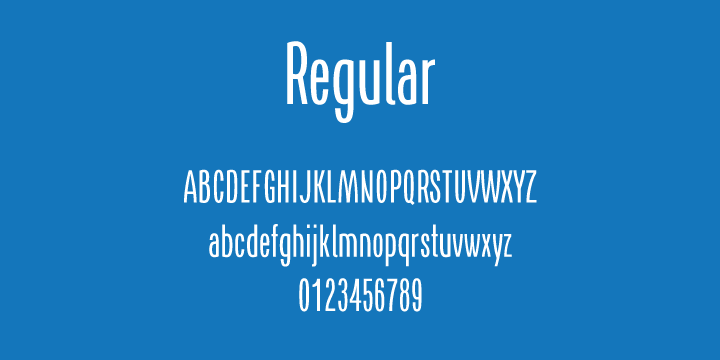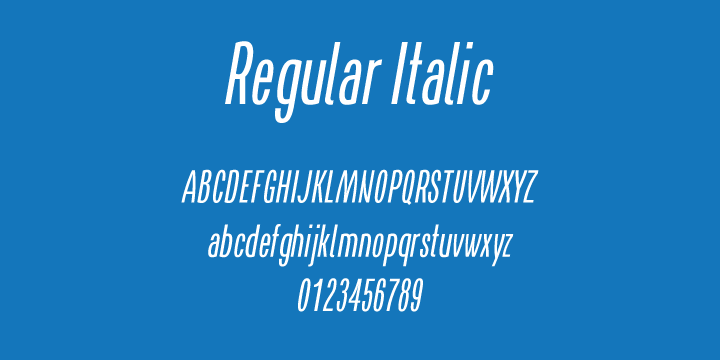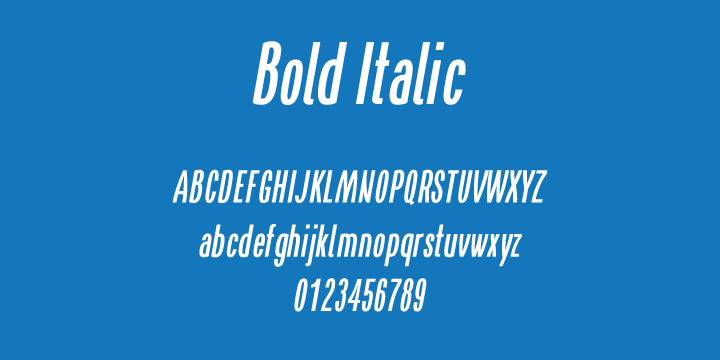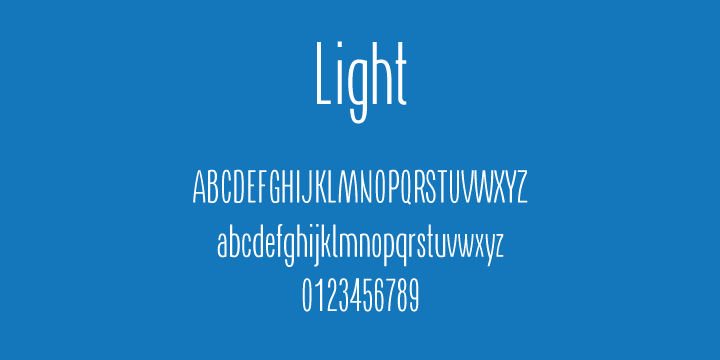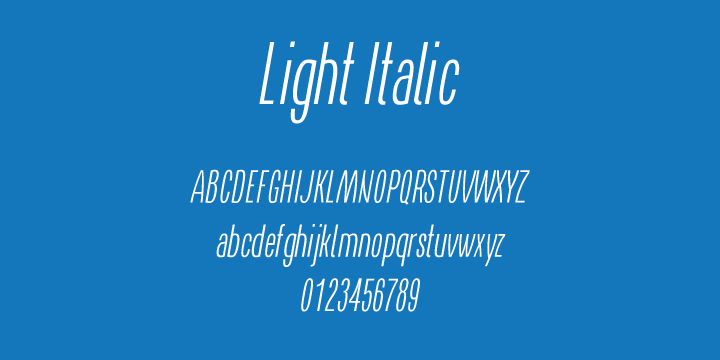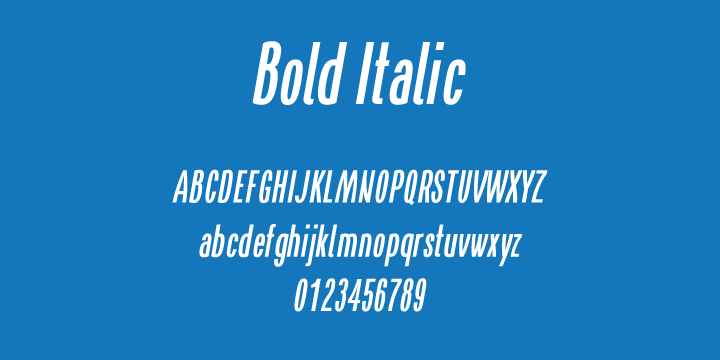
AS Naya is a display sans font family. This typeface has six styles and was published by Aleksandr Sukiasov.
AS Naya is a three-font family with a full character set.
These three fonts work well together or with a non condensed font, great for headlines at a large size. Works well for lots of copy in a small space.
Among other uses, AS Naya is recommended for Newspaper, Magazine, Book and Corporate use.
Design was developed by Aleksandr Sukiasov. Released in 2012.